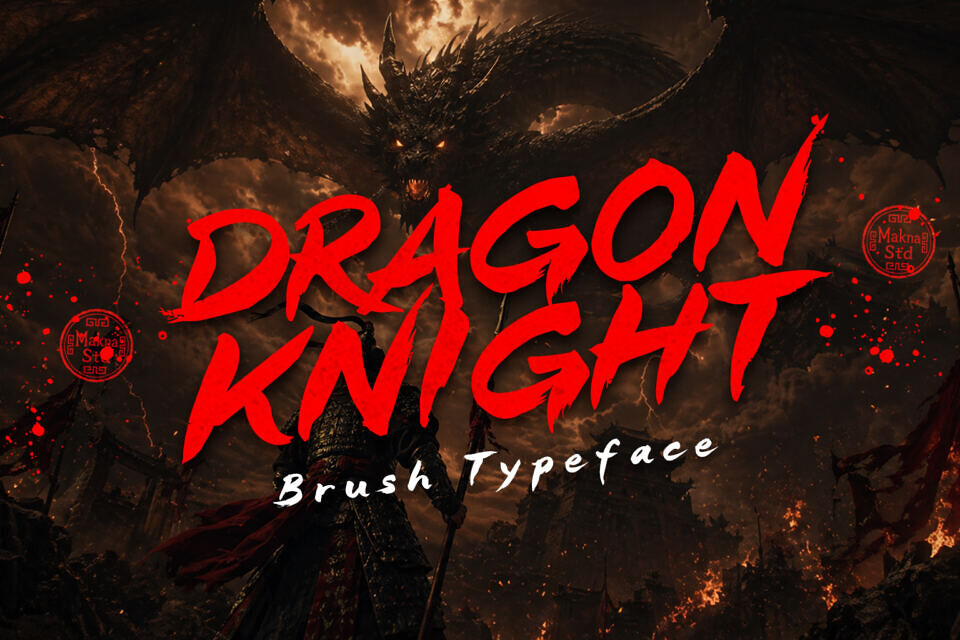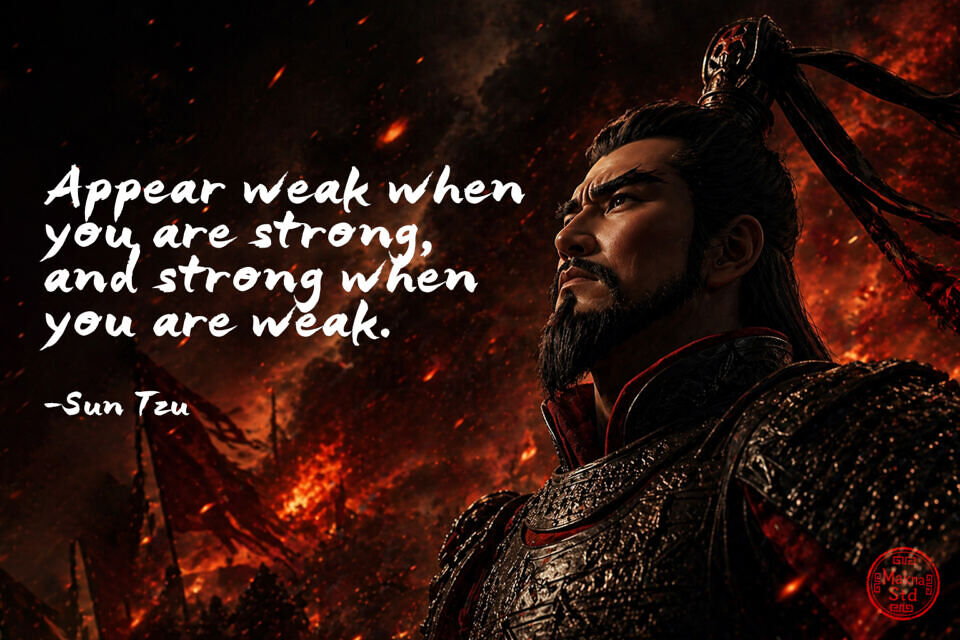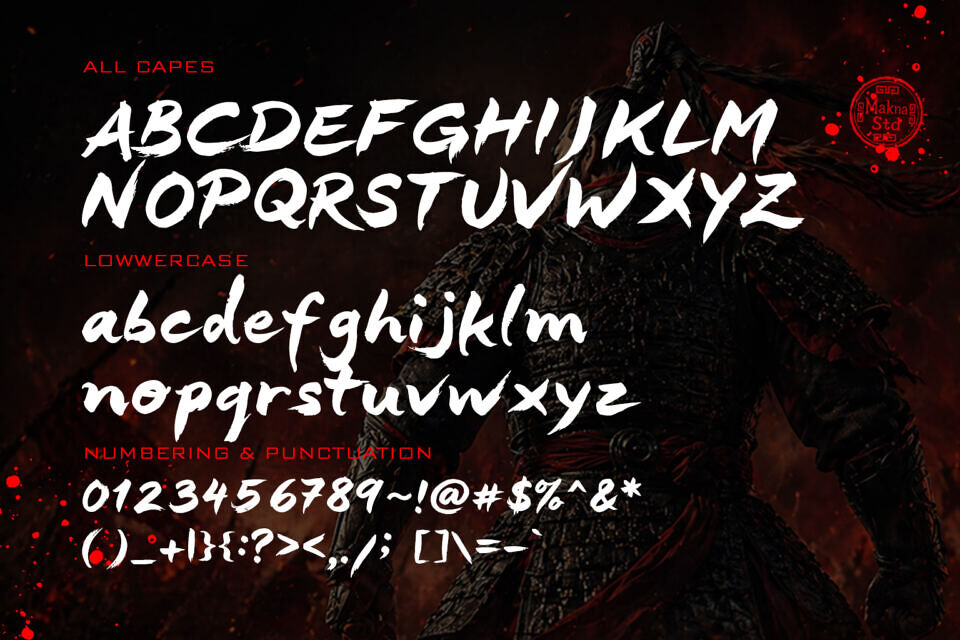
Dragon Knight is a bold and aggressive brush typeface with raw, hand-painted strokes and dynamic splatter details. Its sharp edges and intense energy make it perfect for action, fantasy, and dramatic visual designs.
The font features rugged textures and pointed edges, ideal for designs that require a bold, edgy look, such as streetwear branding, esports logos, action movie promotions, and extreme sports graphics.